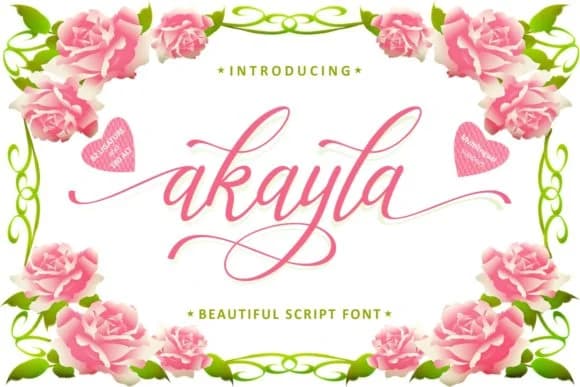
There's something quietly romantic about this typeface. Akayla, designed by ahmadrofingi97, brings that sensibility to any project that calls for a touch of genuine elegance. The script flows with real delicacy, making it a natural choice for wedding invitation suites, handwritten-style greeting cards, and upscale product labeling. Boutique skincare packaging, bookplate designs, fine art prints, and DIY monogram projects all benefit from the refinement Akayla delivers without feeling overwrought.
What really sets this font apart is how the beautifully encoded PUA swashes integrate directly into the letterforms themselves. Rather than sitting awkwardly as afterthoughts, they feel like natural extensions of the base characters, giving you fine-grained control over how decorative or restrained you want each piece to be. The carefully crafted alternates work particularly well for adding visual interest to initial letters or signature lines on invitations and stationery projects.
Pair Akayla with a crisp, minimal sans-serif for body text or supporting headlines, and the contrast will make both typefaces work harder visually. That combination handles everything from elegant event signage to boutique branding applications and styled social media graphics. It's a solid choice for designers who want genuine character without relying on heavy-handed decoration or over-the-top flourishes. Find Akayla on Creative Fabrica and bring this refinement into your next elegant project.
Akayla Font is a script font that shines as a display or heading face. Pair it with a clean sans-serif or serif font for body text β the contrast creates a clear hierarchy while the two styles stay balanced and easy to read.